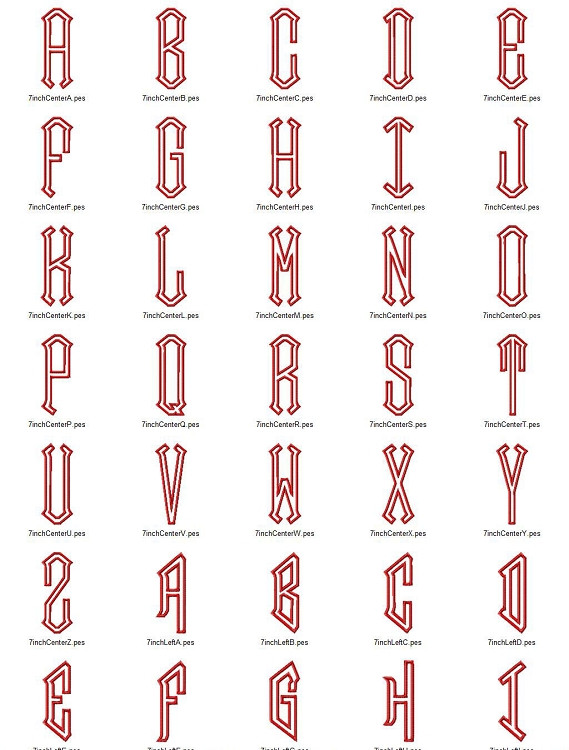
Point Monogram Applique Machine Embroidery Alphabet Font
You get 4 sizes of upper case letters for the Right, Center, and Left side that form a diamond shape when put together. The sizes are based off of the center letter - 5", 6", 7", and 8" tall.